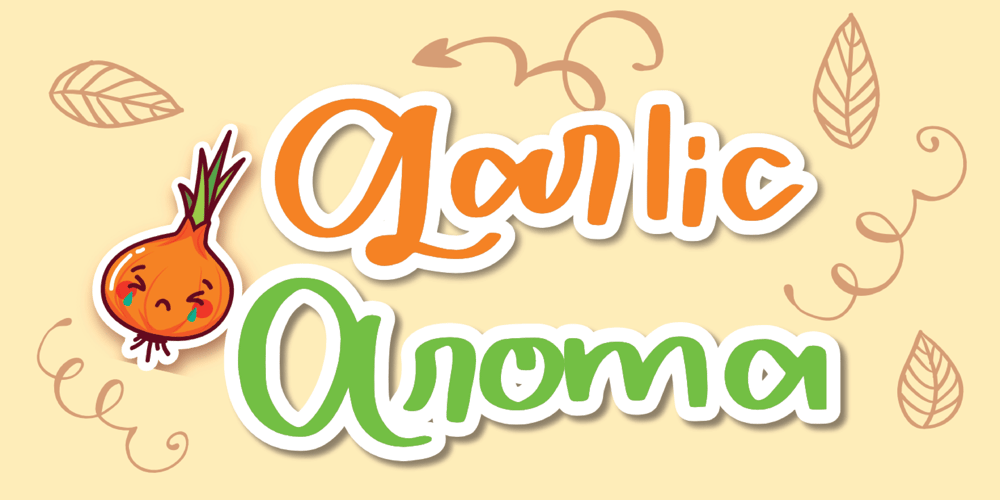
Aroma Garlic Font Family was designed by Mariyana and published by Goodigital13. Aroma Garlic contains 1 styles and family package options. It’s perfect for Christmas cards, branding, stationery, blog design, custom art, custom stamps, custom embossers, book, apparel, packaging, headline, Crafting, Logo, or much more! It will add a unique feel and looks stunning to any design project! Does not contain Caps.